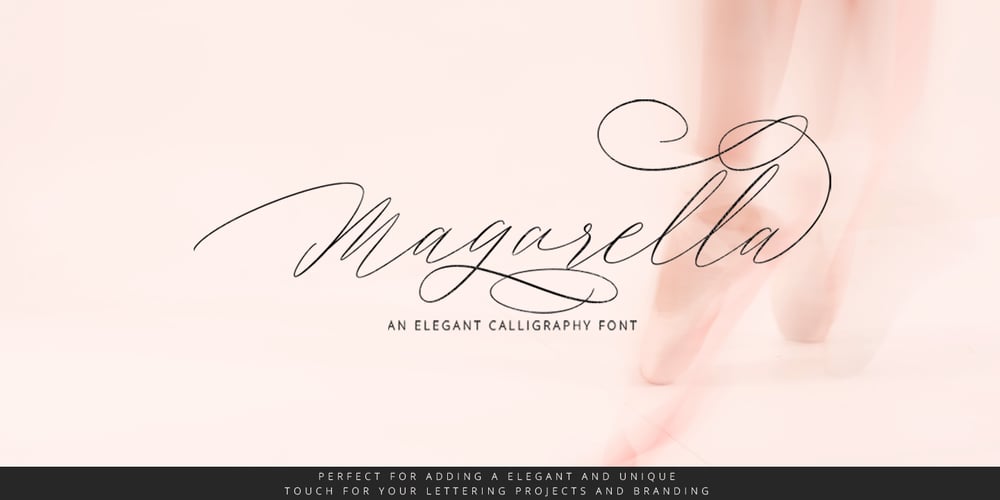
Magarella Script Font Family was designed by Ferdiansyah and published by ijemrockart. Magarella Script contains 1 styles and family package options. Magarella Script – a new fresh & modern script with a calligraphy style, and dancing baseline! So beautiful for usage in invitations, greeting cards, branding materials, business cards, quotes, posters, and more! Magarella Script come with many alternates and ligatures. The alternative characters were divided into several Open Type features such as stylistic sets, stylistic alternates and ligatures. The Open Type features can be accessed by using Open Type savvy programs such as Adobe Illustrator, Adobe InDesign, Adobe Photoshop Corel Draw X version, and Microsoft Word. This font has the PUA unicode (specially coded fonts), so that all the alternate characters can easily be accessed in full by a craftsman or designer! PUA Encode There are additional ways to access alternates, using Character Map (Windows), Nexus Font (Windows), Font Book (Mac) or a software program such as PopChar (for Windows and Mac). For use in office word, you all can read the following article. http://www.magpiepaperworks.com/blog/using-opentype-fonts-in-microsoft-word/If You have any question, don’t hesitate to contact me by email ijemrealmad54@gmail.com